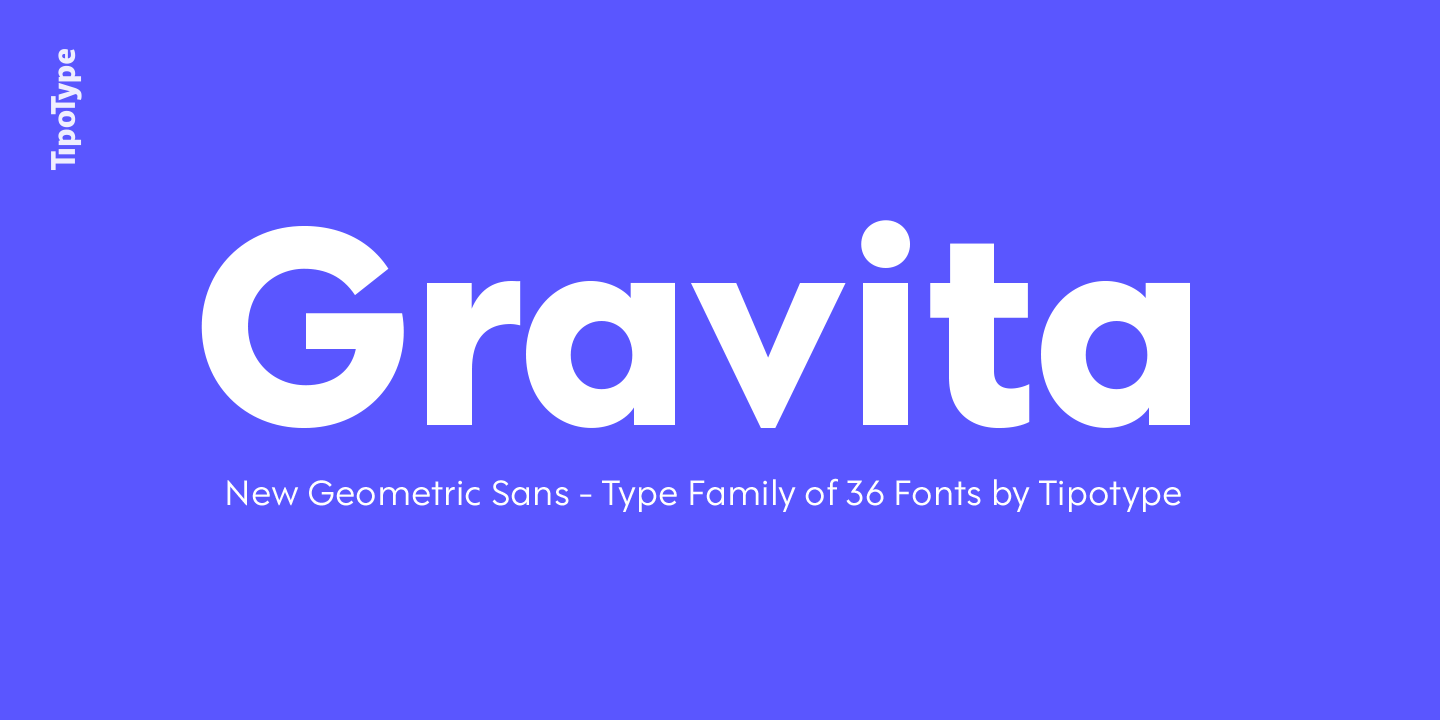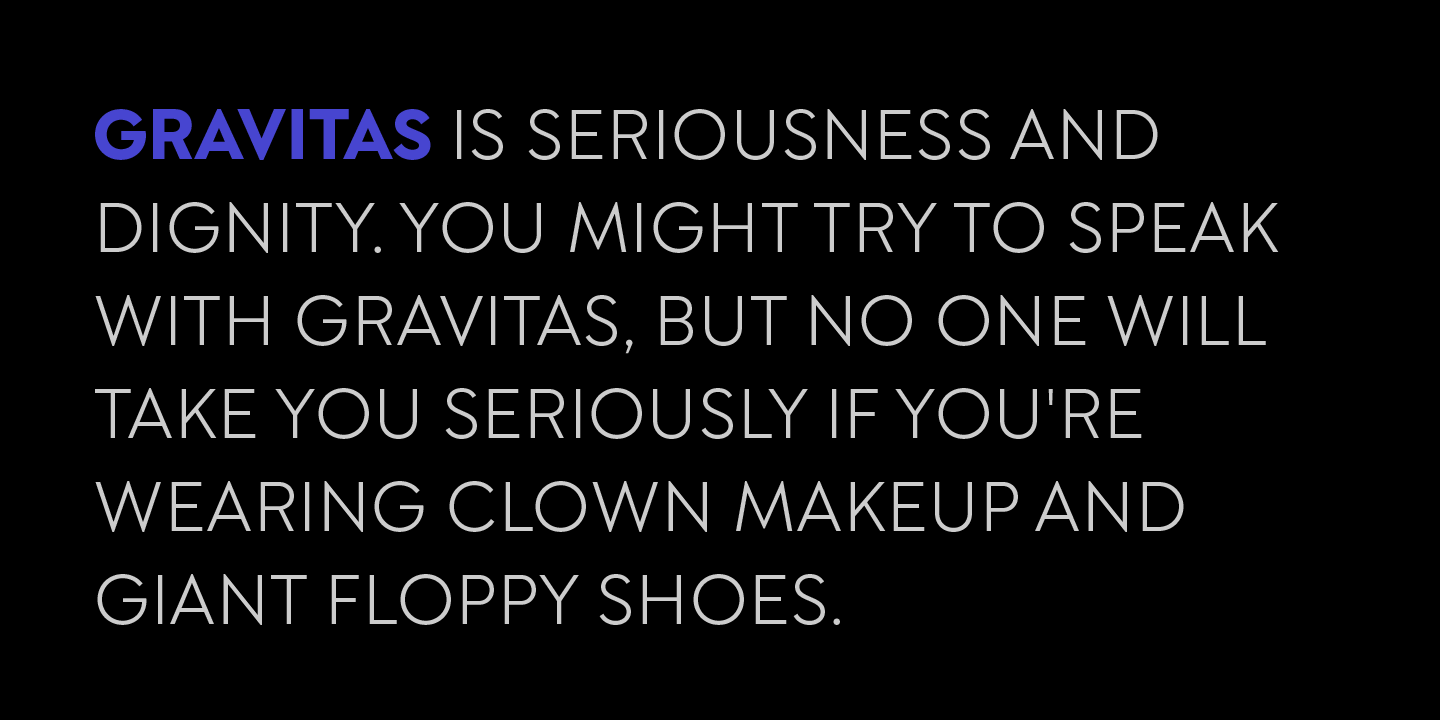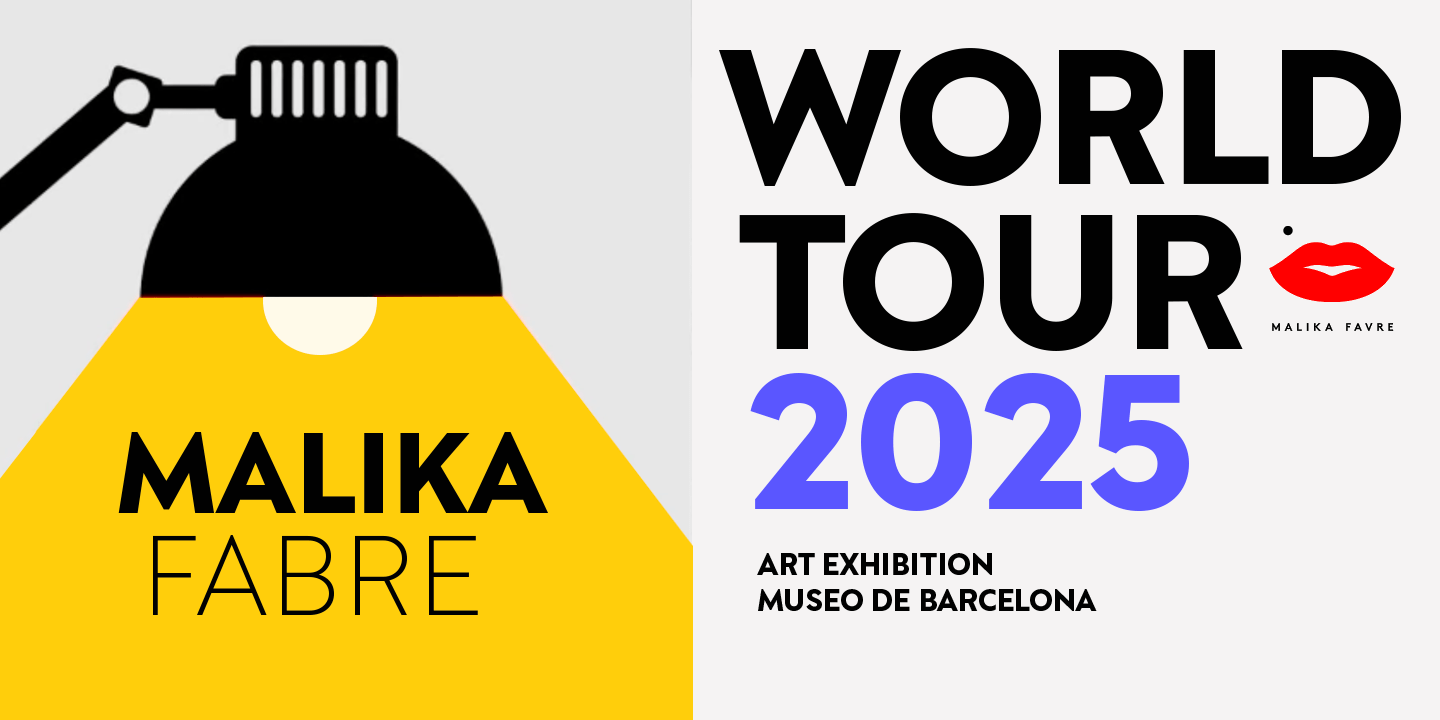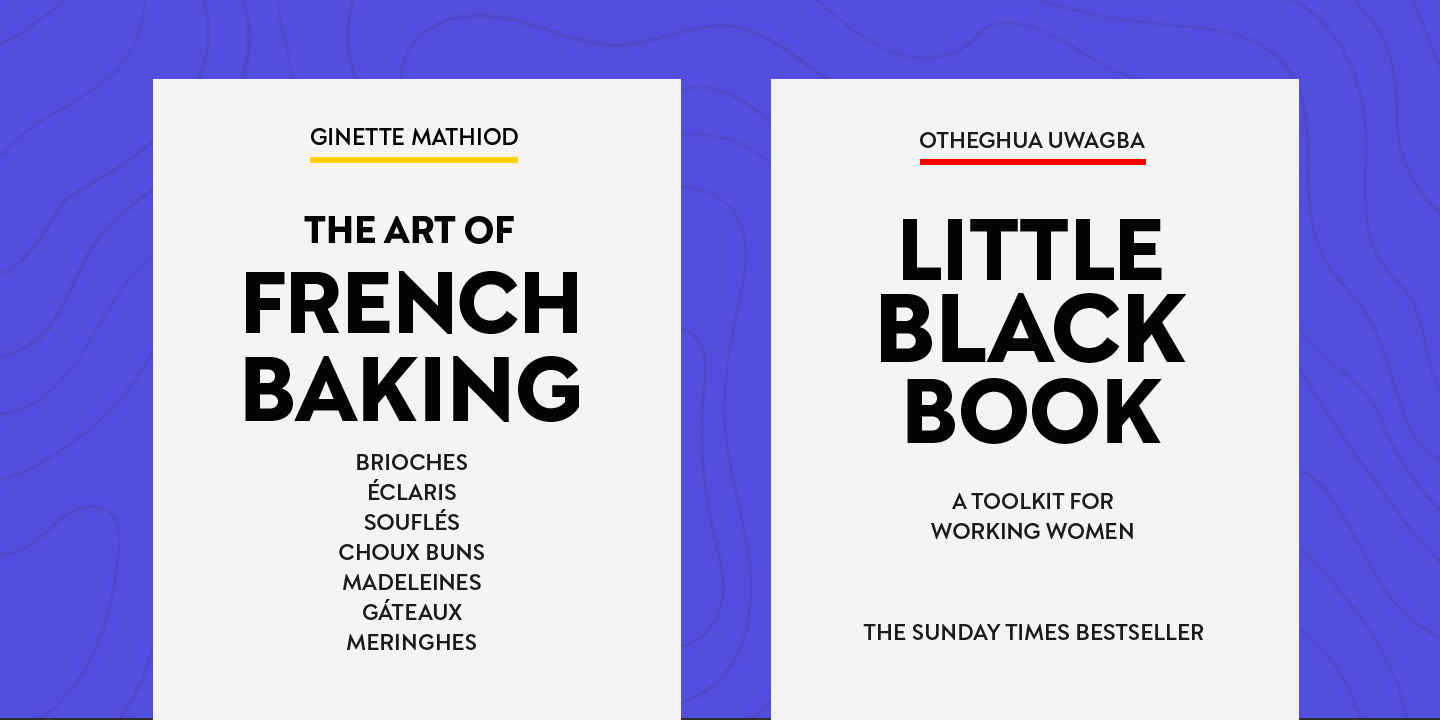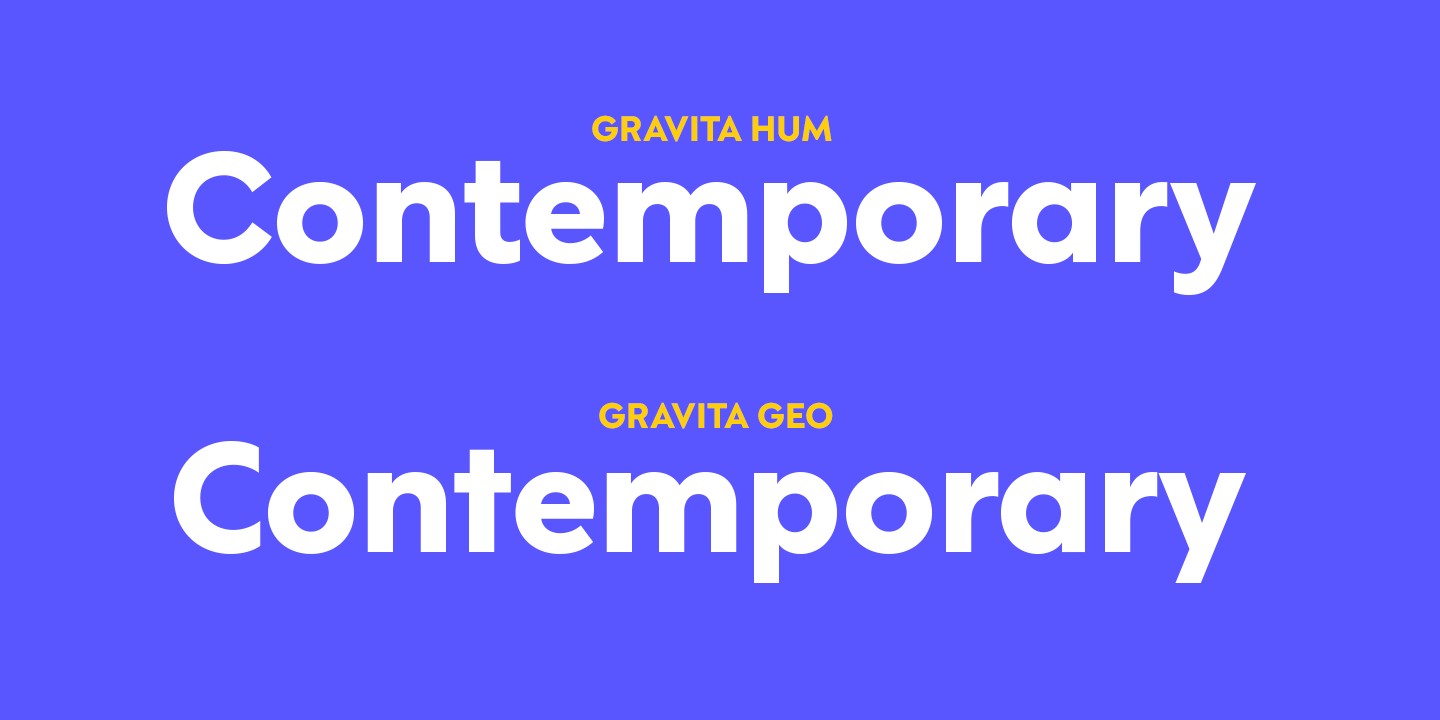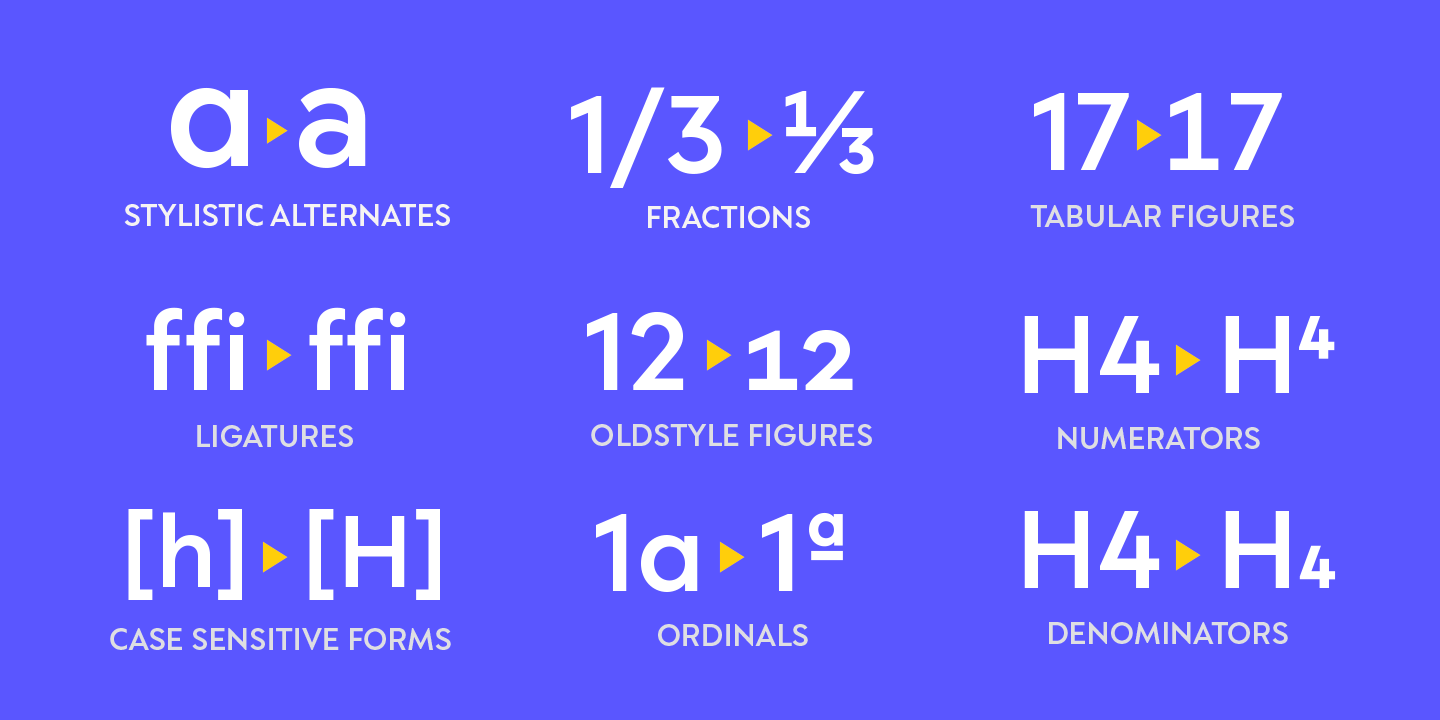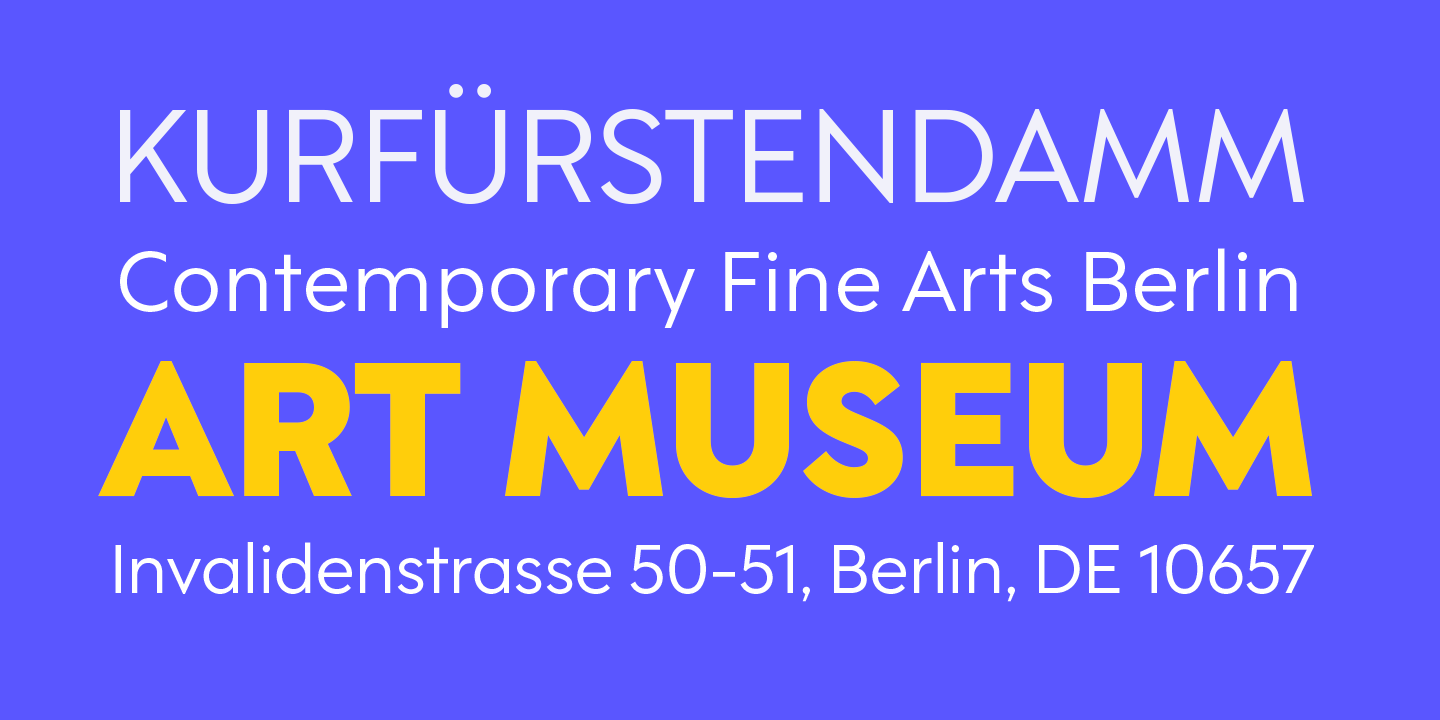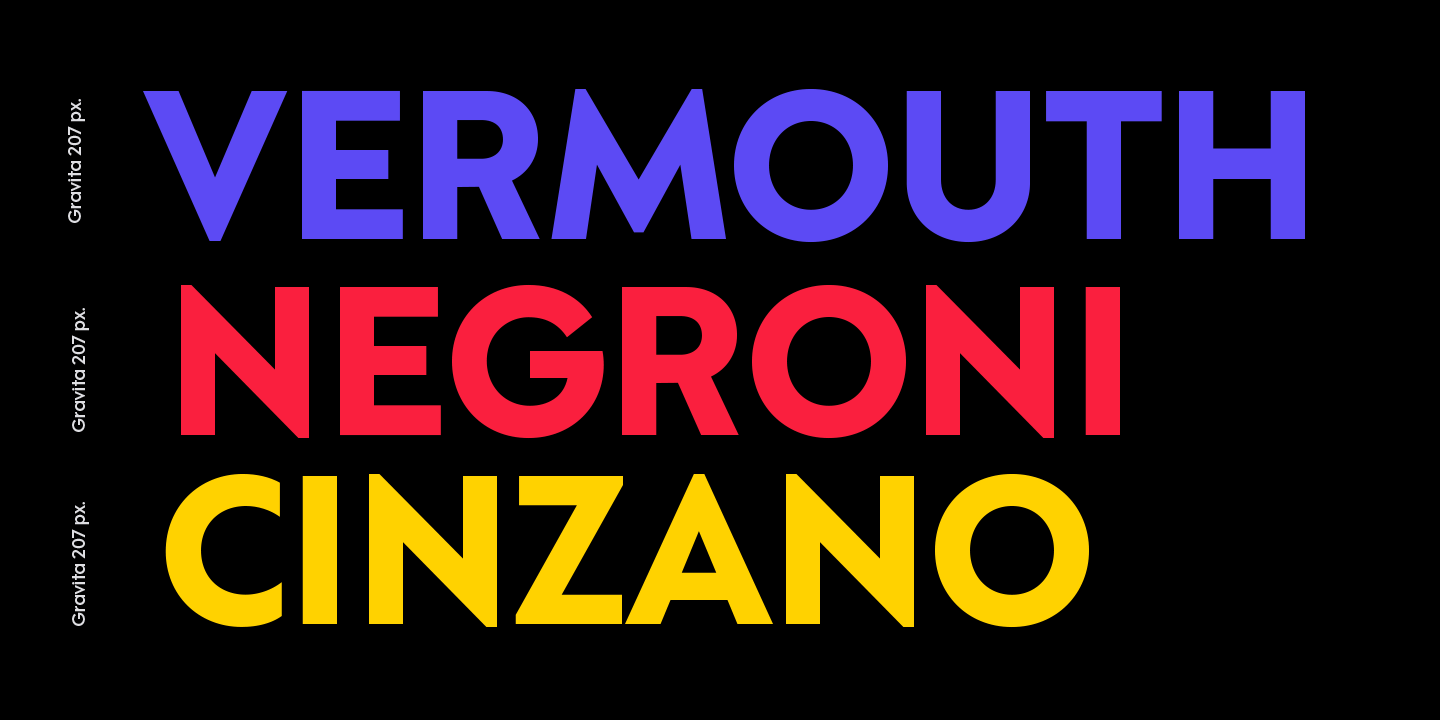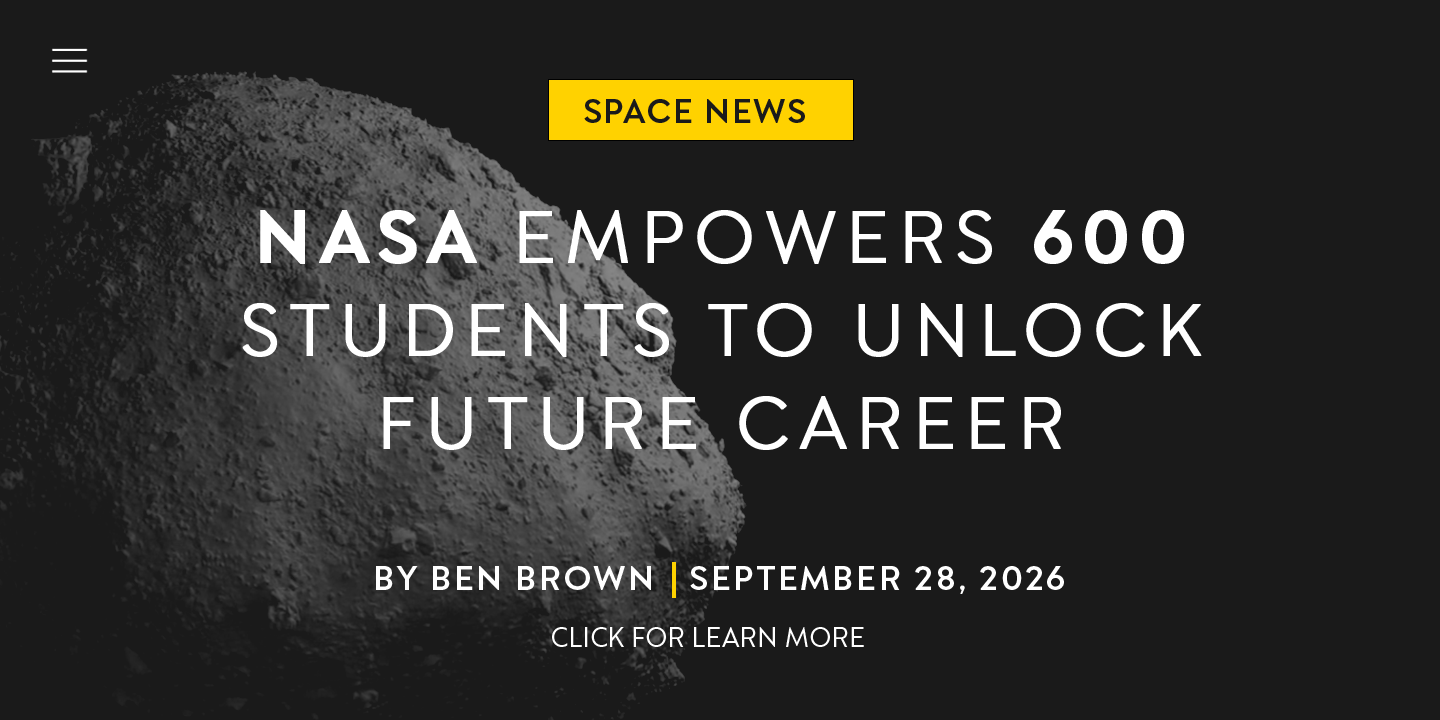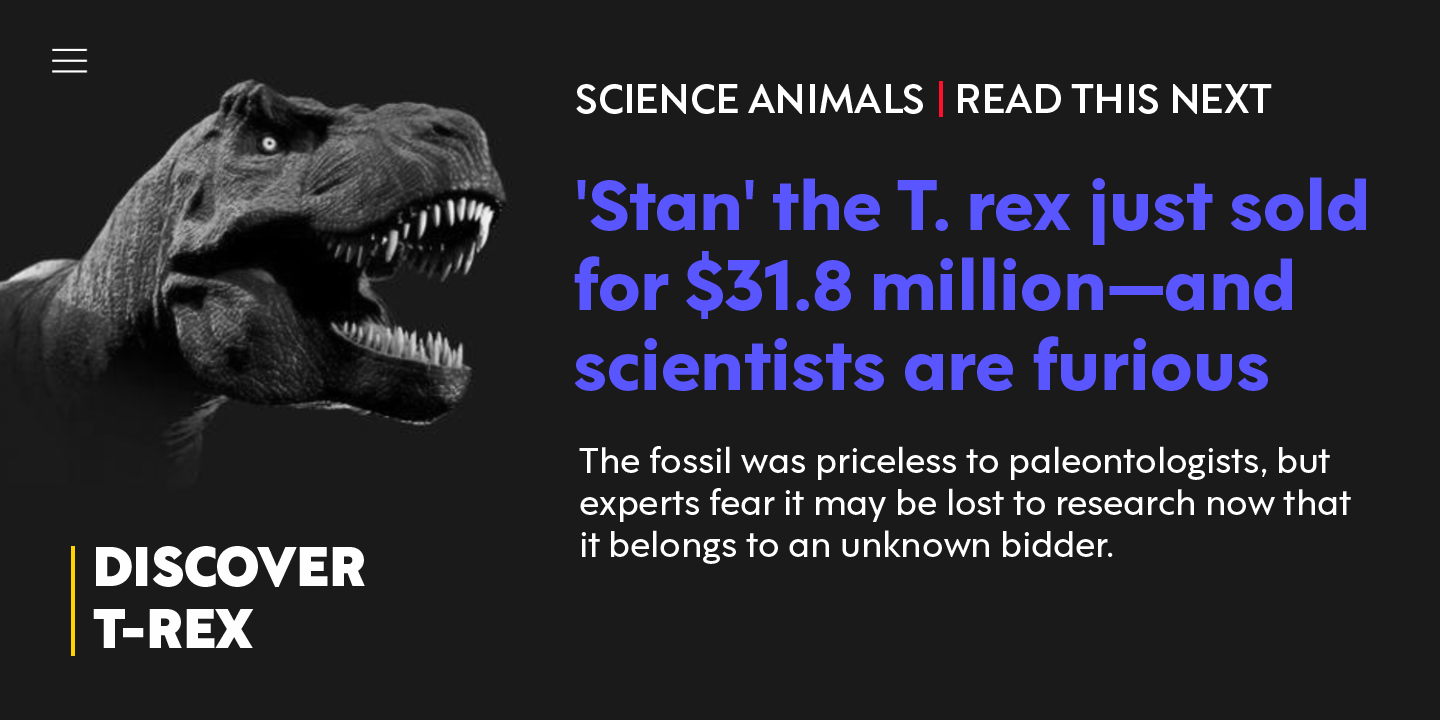
Gravita
Font Family by TipoType
Gravita is a typeface family that conveys security and respect by combining the solidity of its classic proportions with the strict precision of its modern profile drawing. Ideal for modern corporate communication where you need customers to perceive confidence and transparency.
It has 9 weight variables, 2 predefined sets (GEO and HUM) with their respective italics.
Its design is inspired by the geometric precision of modernist imprint typefaces reinterpreted under a 21st century humanist sensitivity.